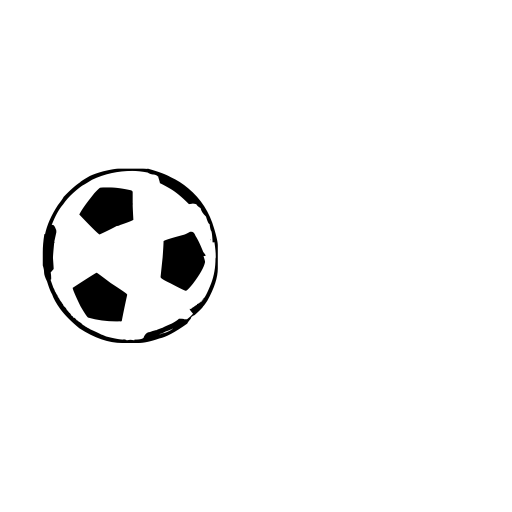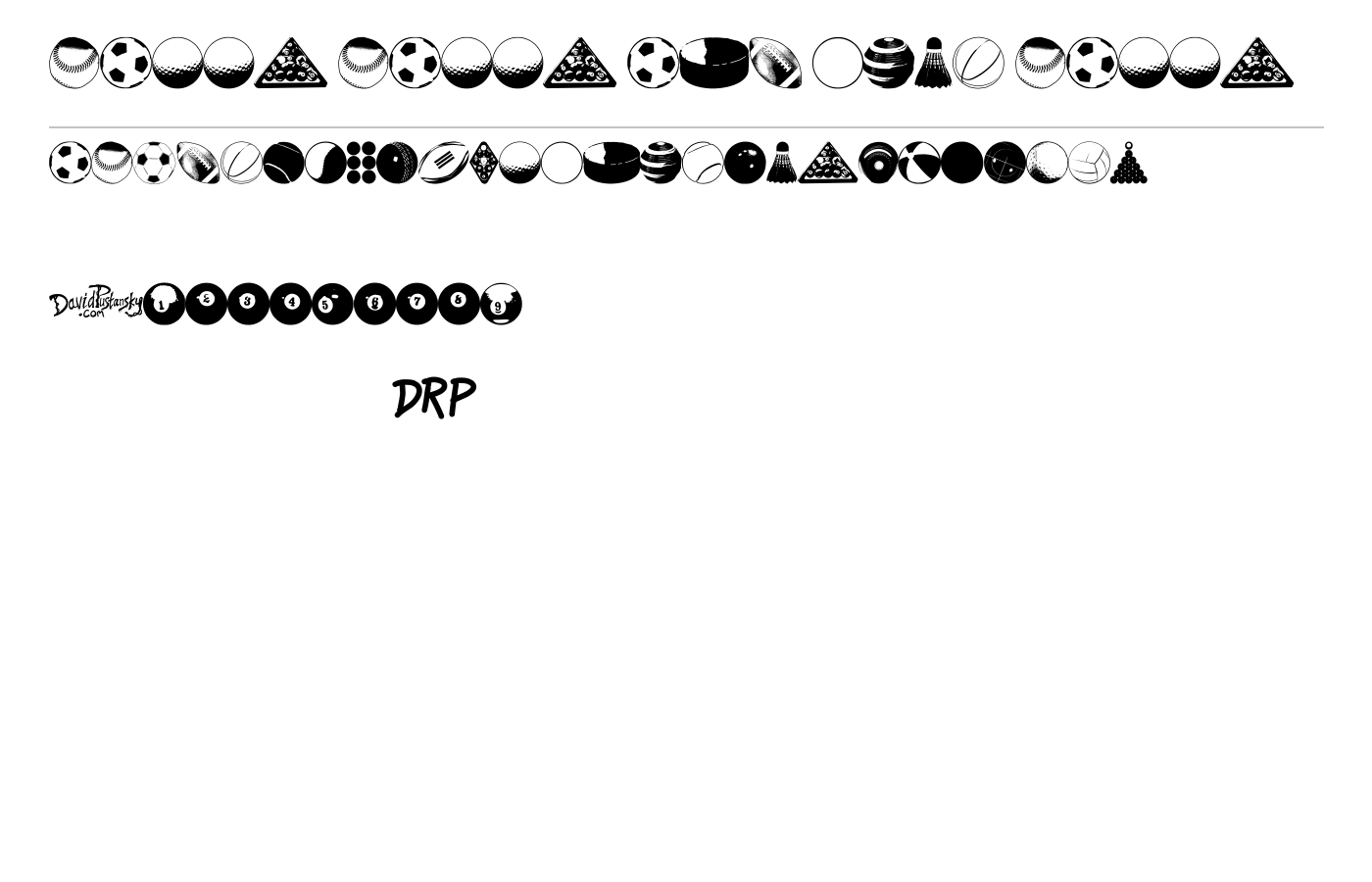
The "BALLS BALLS AND MORE BALLS" font is a fun and playful dingbat-style typeface composed entirely of detailed sports ball icons and related shapes. It offers a unique visual language rather than traditional letters, making it perfect for sporty, casual designs, event promotions, or playful branding where a sporty theme is desired. This font works best for decorative uses in logos, posters, and packaging that want to emphasize energy and sports enthusiasm in a bold, graphic way.
BALLS BALLS AND MORE BALLS Font
About BALLS BALLS AND MORE BALLS Font
| Font family | BALLS BALLS AND MORE BALLS Font |